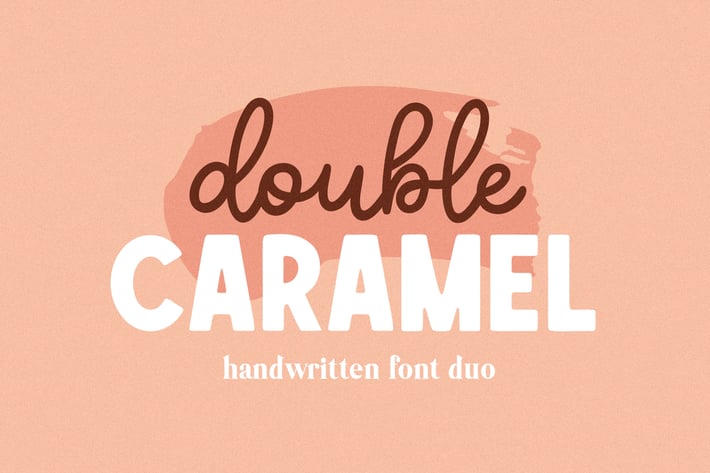
Double Caramel Font Duo
Double Caramel a handwritten font duo for crafters
- Double Caramel Script Font - Upper and lowercase letters
- Double Caramel Sans Serif Font - Capital letters
- Numbers
- Multilingual support